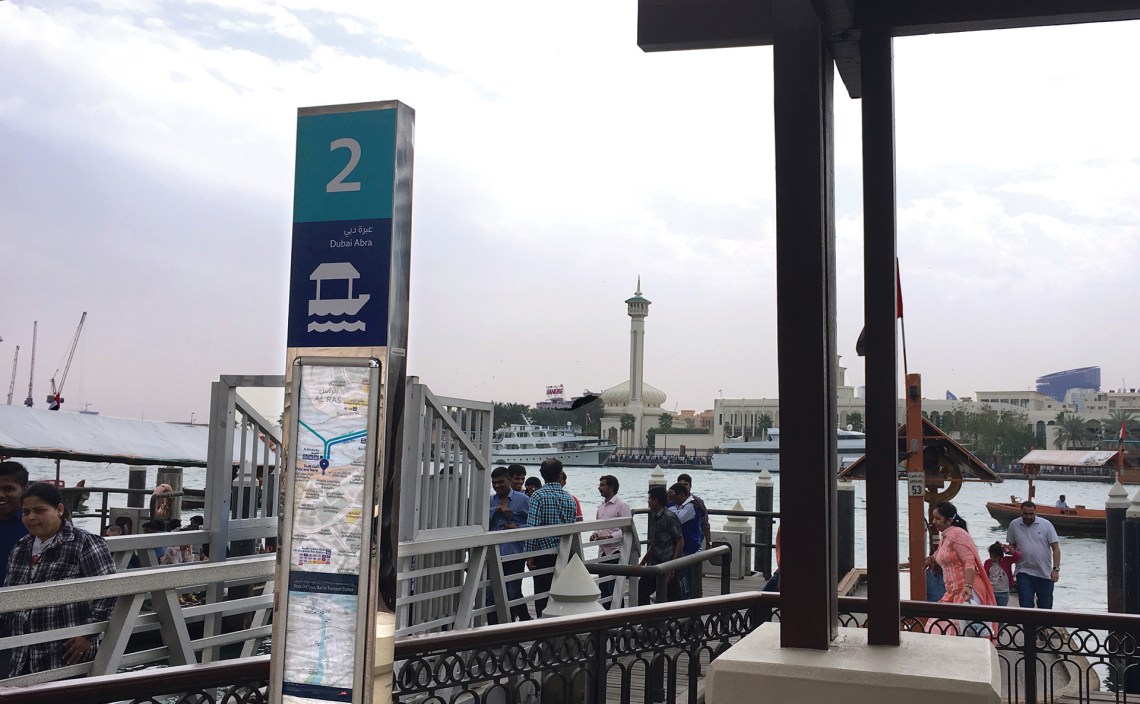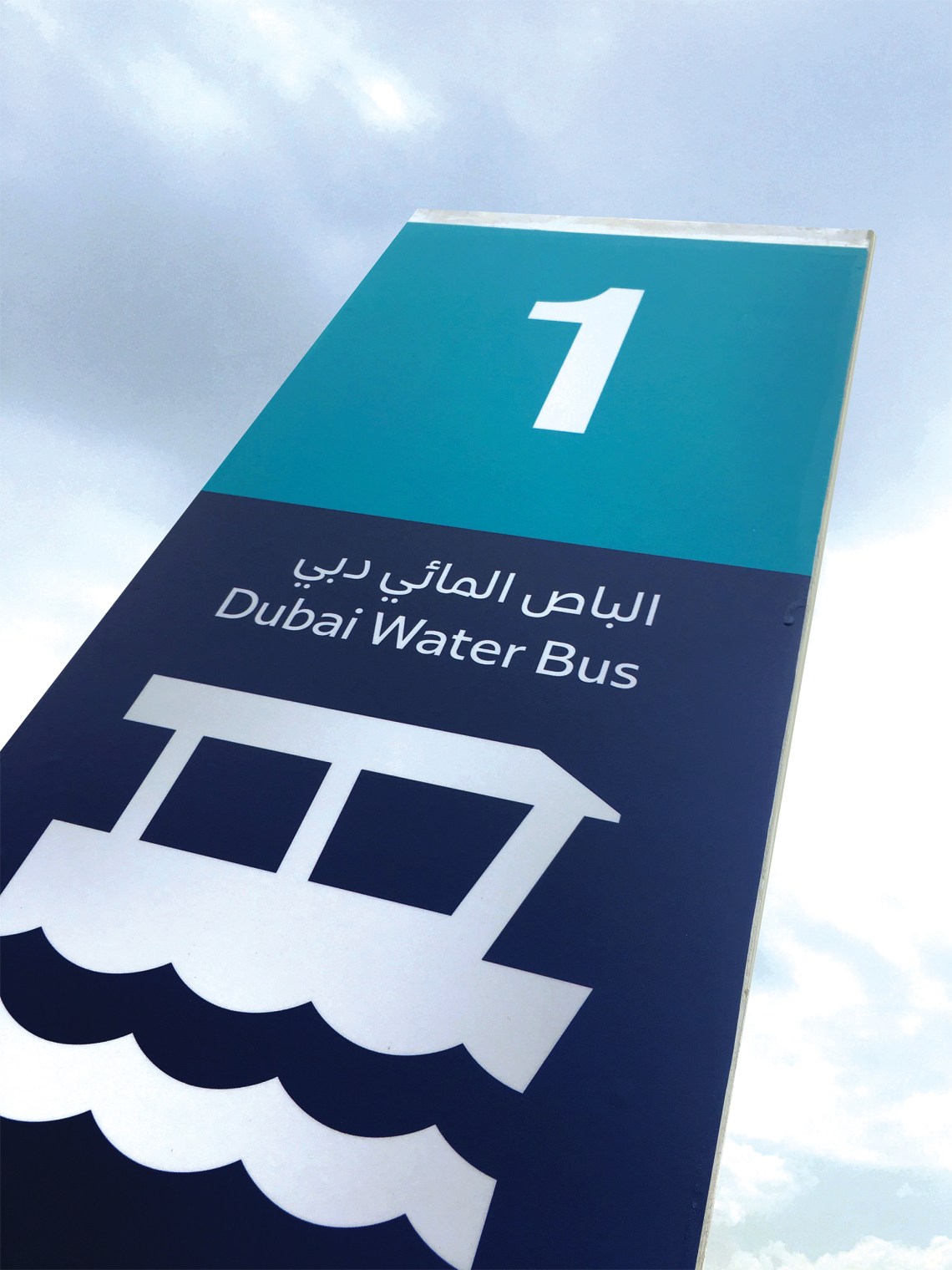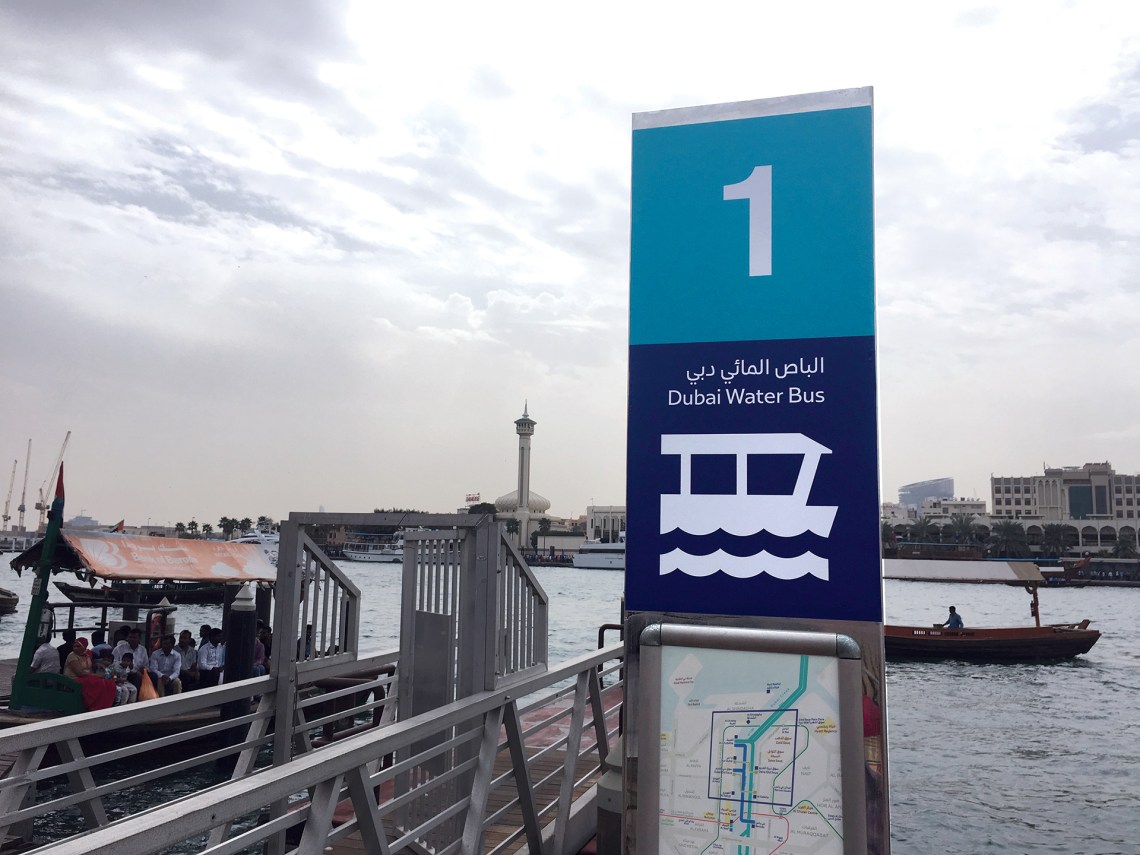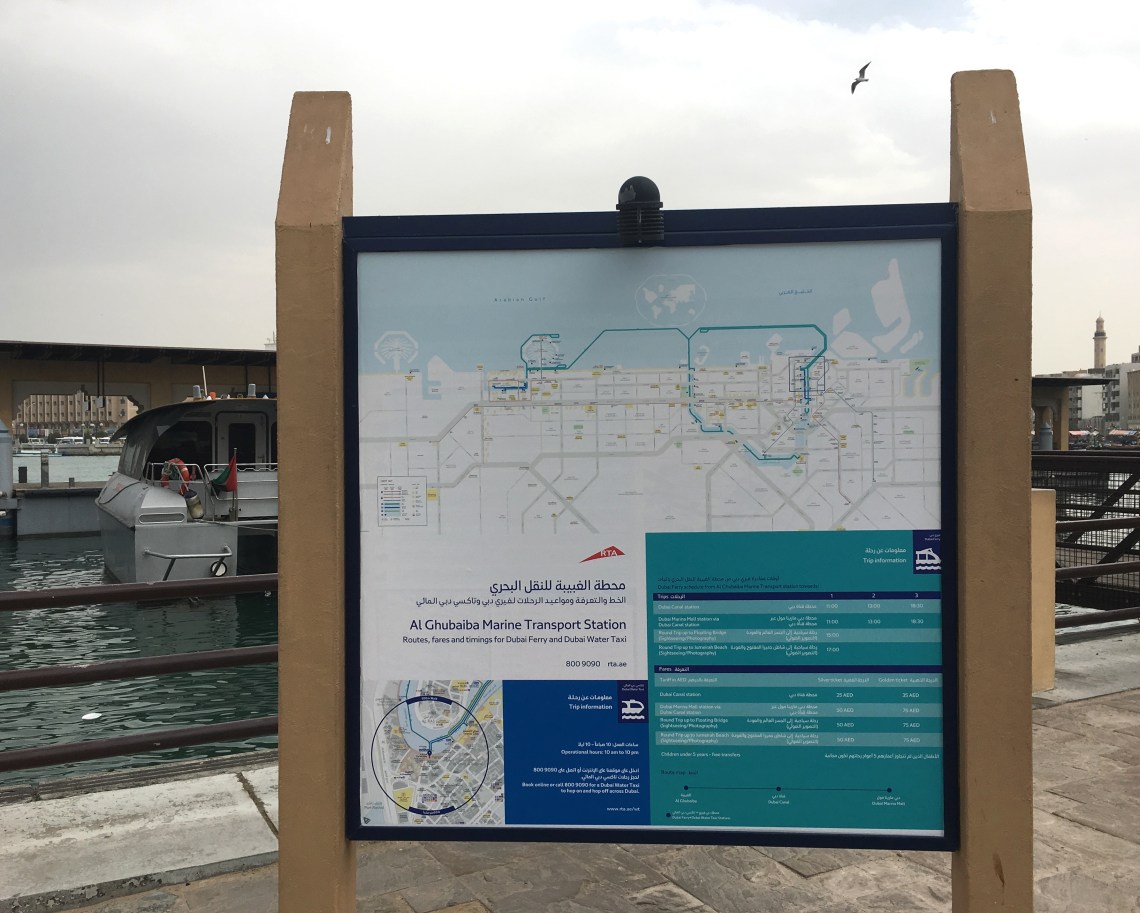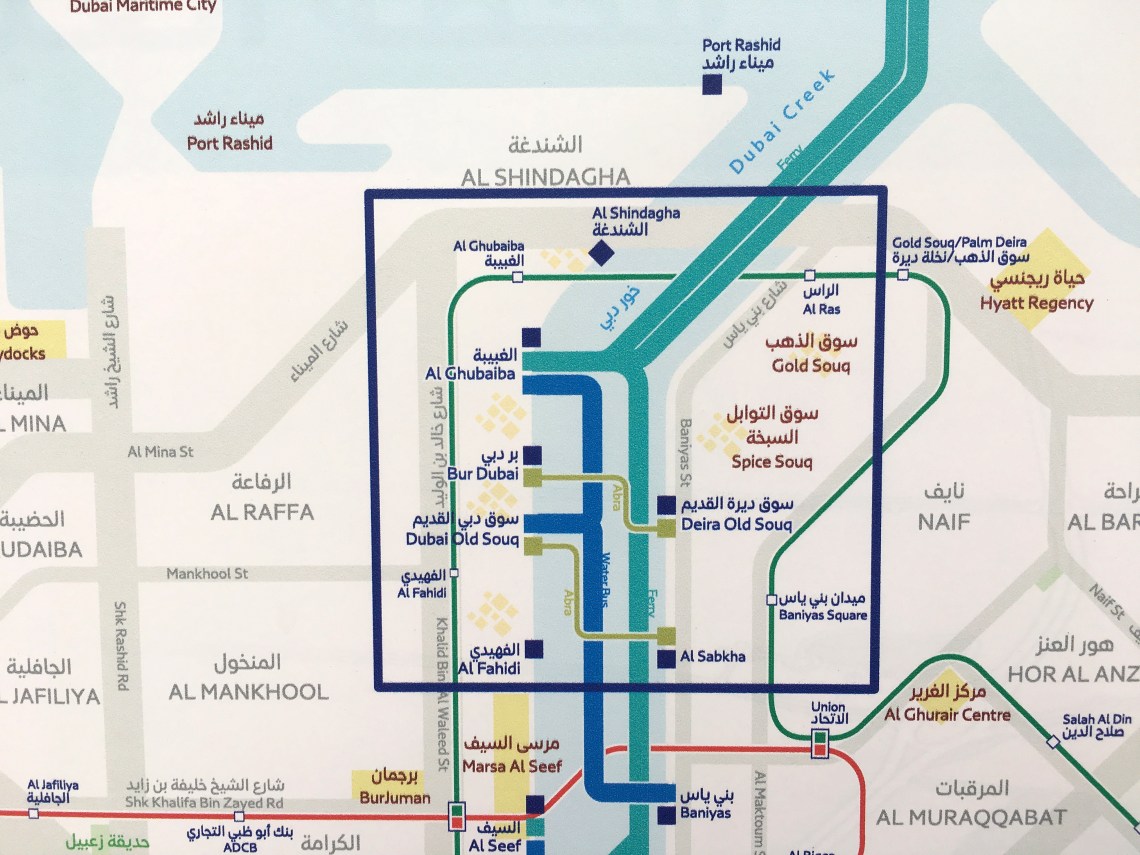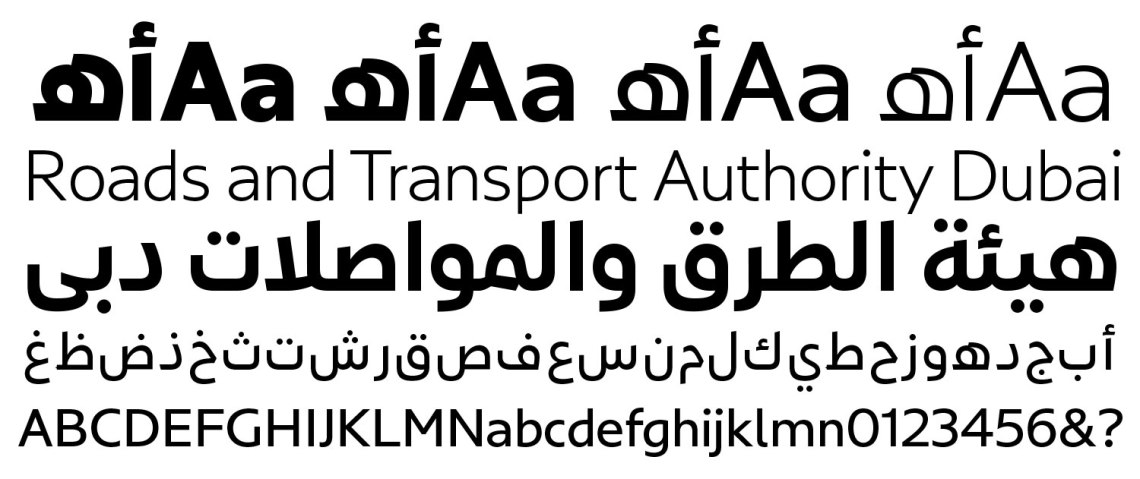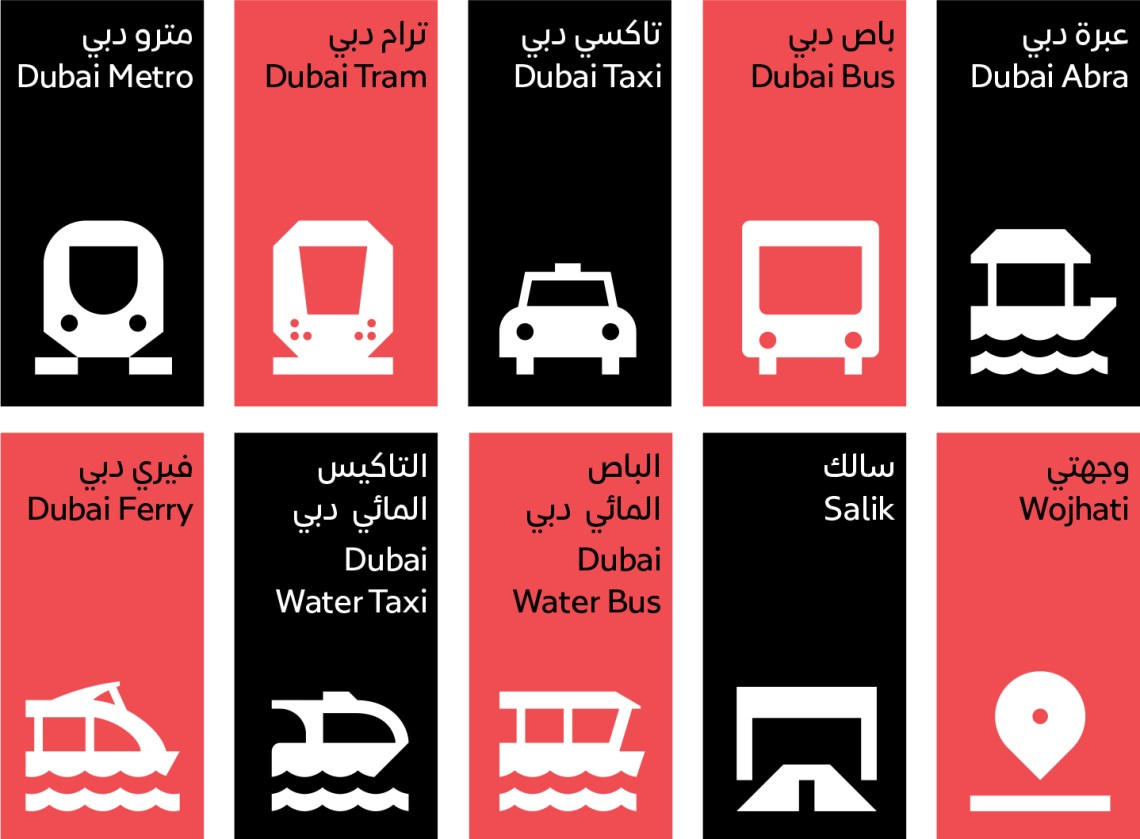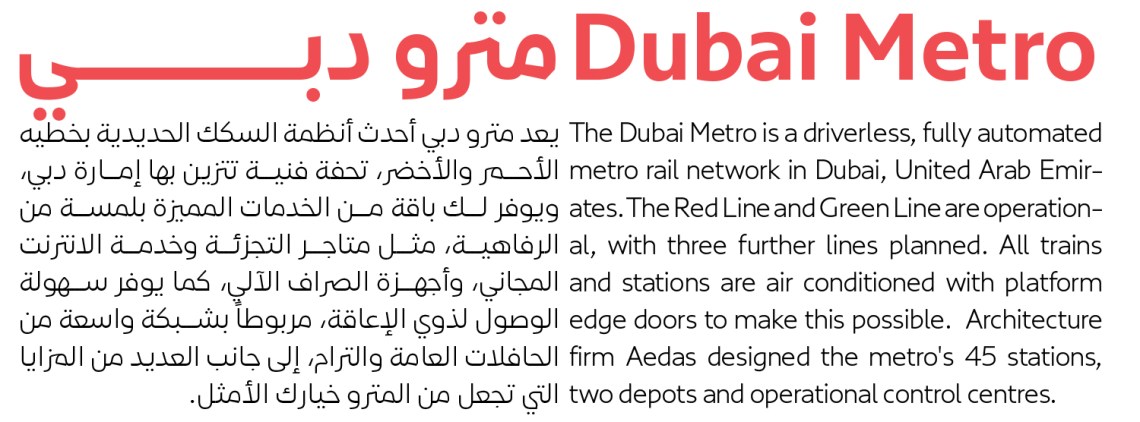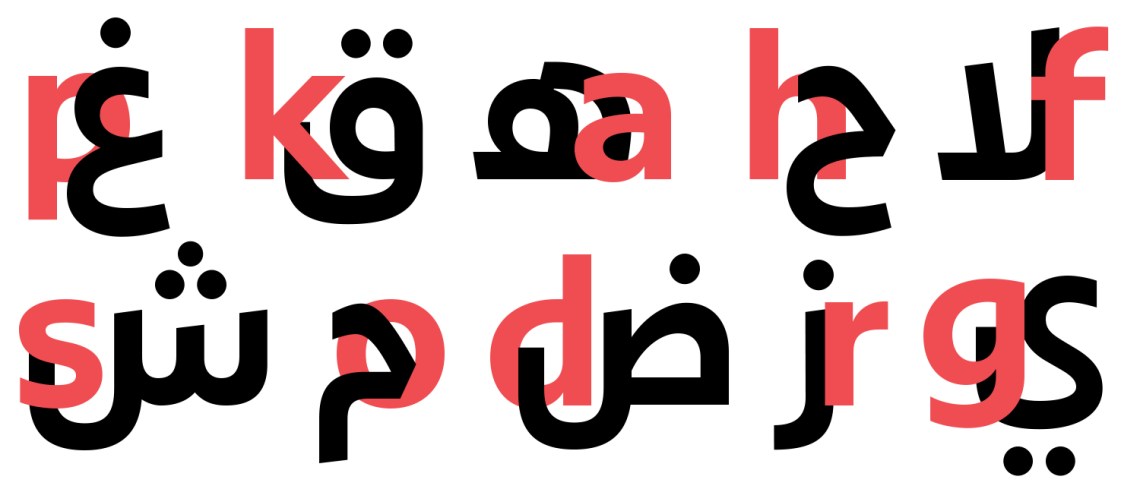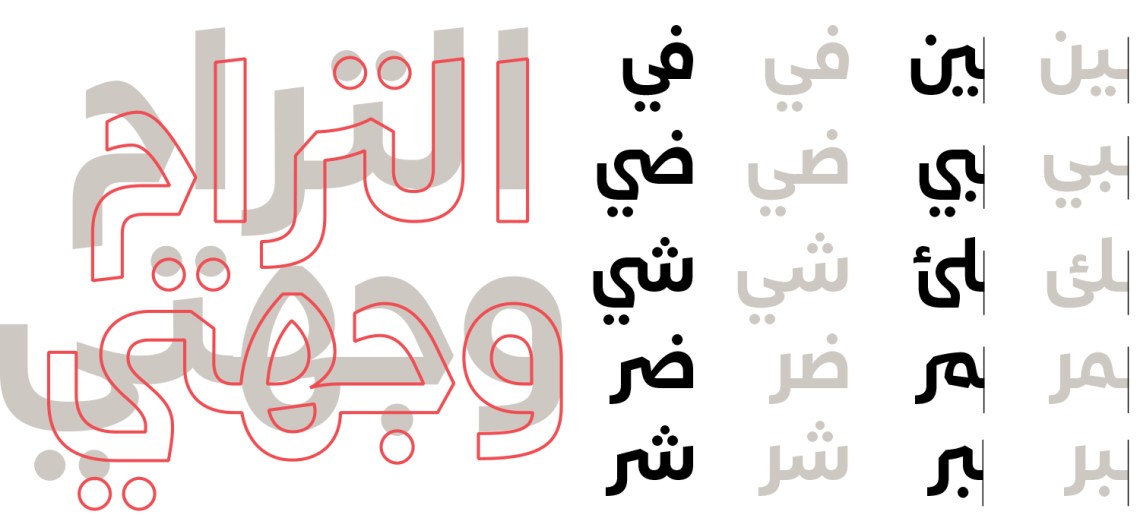
RTA Dubai Corporate Typeface
The RTA Dubai bespoke multilingual typeface is composed of a distinct contemporary Naskh style Arabic accompanied by a humanistic and symmetric Sans Serif Latin. It is a font family that was created with unique design characteristics while putting legibility first. The typeface was designed to function perfectly in all transportation systems and communication mediums of RTA Dubai. With its open spirit and clear outlines, the typeface is easy to spot and read on road signs and all kinds of transportation vehicles. It is also unique and fully legible on RTA website, RTA application and on all of RTA social media platforms.
إنّ الخطّ الطباعيّ المتعدد اللغات المصمَّم خصّيصاً لهيئة الطرق والمواصلات بدبيّ، هو عبارةٌ ــ في شكله العربيّ ــ عن نوعٍ حديثٍ وفريدٍ من خطّ النسخ العربيّ، يرافقه خطّ لاتيني غير مذيّل، متماثلٌ وأقرب ما يكون للخطّ الانسيابي. هو نمطٌ من عائلةٍ من الخطوط ذات مواصفاتٍ فريدة في التصميم، ابتُكِرت مع تقديم اعتبارسهولة القراءة على غيره. لقد أوجِدَ هذا الخطّ ليعمل بصورةٍ مثاليةٍ في جميع أنظمة النقل ووسائط التواصل التابعة لهيئة الطرق والمواصلات في دبيّ. وبفضل ما يعكسه هذا الخطّ من روحٍ منفتحةٍ ووضوحٍ في المعالم، فإنّ النظر يلتقطه بيُسر، كما تسهل قراءته على إشارات الطرق وكلّ أنواع مركبات النقل. وهو كذلك فريدٌ ومقروءٌ بشكلٍ ممتازٍ على الموقع الإلكترونيّ لهيئة الطرق والمواصلات، وعلى التطبيق التابع لهيئة الطرق والمواصلات، كما على جميع وسائل التواصل الاجتماعيّ التابعة لهذه الهيئة
The typeface purpose is to give a modern feel and look to RTA’s signage and visual communication systems. It truthfully reflects the highest tech transportation platforms that are being made available to Dubai commuters nowadays. RTA Dubai covers: Dubai Metro, Dubai Tram, Dubai Bus, Dubai Taxi, Dubai Water Bus, Dubai Car, Dubai Water Taxi, Dubai Ferry, and Dubai Abra.
كان الهدف من خلق هذا الخطّ إضفاء طابعٍ ومظهرٍ حديثَين على أنظمة الإشارات والتواصل المرئيّ لدى هيئة الطرق والمواصلات. وهو يعكس صورةً صادقةً لما توفّره الهيئة للركّاب من التقنيات الأكثر تقدّماً في وسائل النقل. وتشمل هيئة الطرق والمواصلات في دبيّ: مترو دبيّ، وترامواي دبيّ، وباص دبيّ المائيّ، وسيارة دبيّ، وتاكسي دبيّ المائيّ، ومعدّية دبيّ، وعبّارة دبيّ
The type family is composed of 4 weights (Light, Regular, Bold & Black) covering both Arabic and English languages. It contains an extended set of ligatures to strengthen readability. Pascal Zoghbi, from 29LT, designed the Arabic and Swiss Typefaces crafted the Latin. The project was set in collaboration with the branding agency Wolff Olins that was behind the creation of the new brand identity of RTA Dubai.
تتألّف عائلة الخطوط هذه من أوزانٍ أربعة (خفيف وعاديّ وعريض وأسود) في كلا اللغتَينِ العربية والإنكليزية، وتحتوي على مجموعةٍ واسعةٍ من الروابط لتعزيز سهولة القراءة. وقد نفّذ التصميم العربيّ باسكال الزُغبي من محترَف «٢٩حرف»، بينما صممت مؤسسة «سويس تايبفايسز» الشكل اللاتينيّ. تمّ تنفيذ المشروع بالتعاون مع وكالة العلامات التجارية «وولف أولينز» التي كانت وراء ابتداع الهوية التجارية المميِّزة لهيئة الطرق والمواصلات في دبيّ